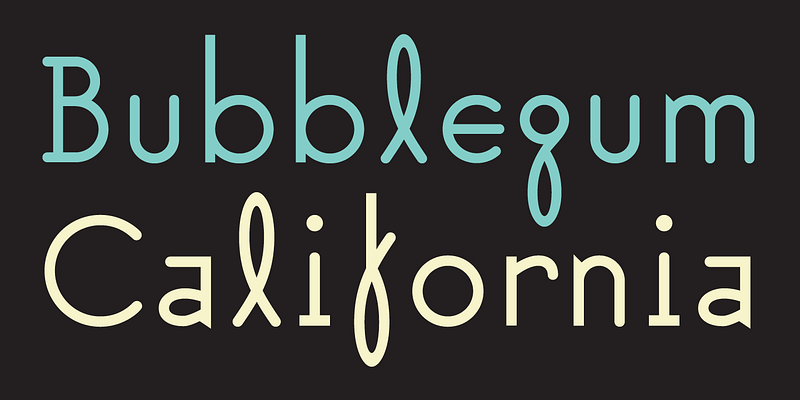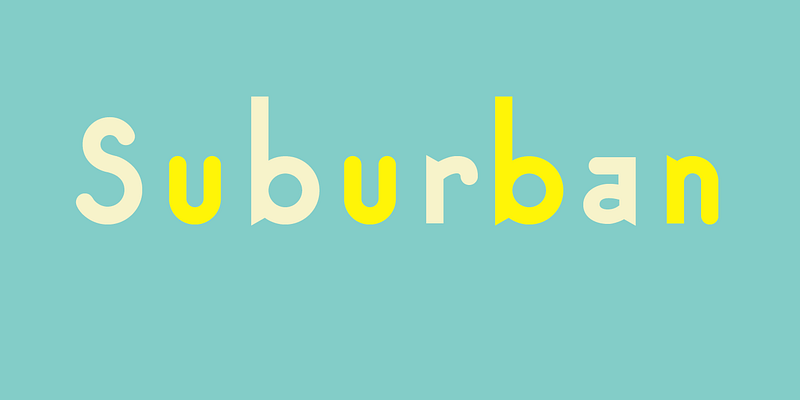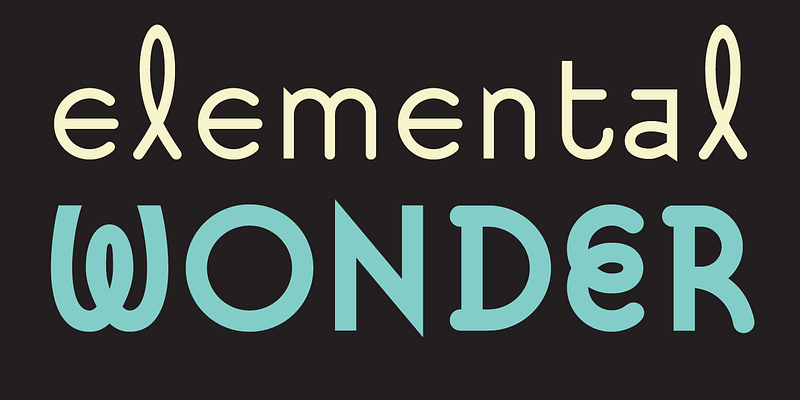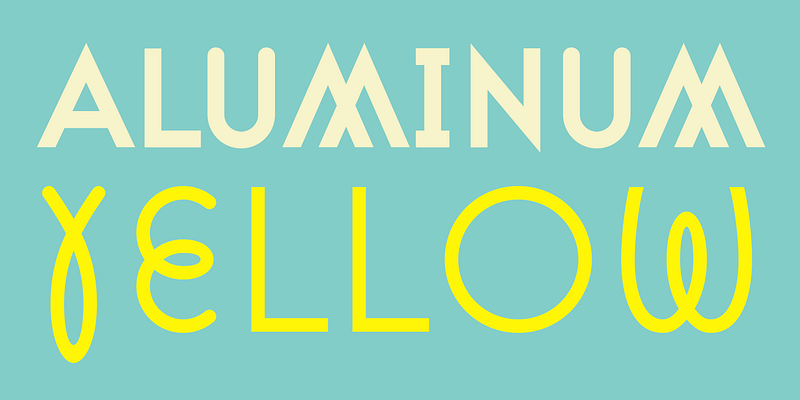
Suburban was VanderLans’ first attempt at the design of a complete typeface. The basic character ideas were sketched out by hand and then digitally redrawn and completed by Zuzana Licko.
Like many designers who design their first font, VanderLans’ goal was to incorporate into one design all of those components from other typefaces that the designer always admired. This led to a cross between Futura and the vernacular scripts you might find on the jersey of your local softball team. The final typeface, therefore, is a combination of fairly rational, geometric shapes sprinkled throughout with whimsical and calligraphy-inspired letterforms.
Designing Suburban also functioned as catharsis, an opportunity that allowed VanderLans to disprove (at least to himself) some of the basic notions he had learned in art school regarding traditional type design. Suburban would be considered a “vermicelli” font, a typeface lacking the necessary visible contrast and stresses between counters and strokes and/or optical corrections to make it a useful typeface. All valid notions, if your goal is to attain the highest level of legibility, but by no means the only route to making type that communicates.
As it becomes increasingly difficult to create original typeface designs, VanderLans is proud to report that Suburban can lay claim to being the only typeface in existence today that uses an upside down lower case “l” as a “y.” Creativity knows no bounds.